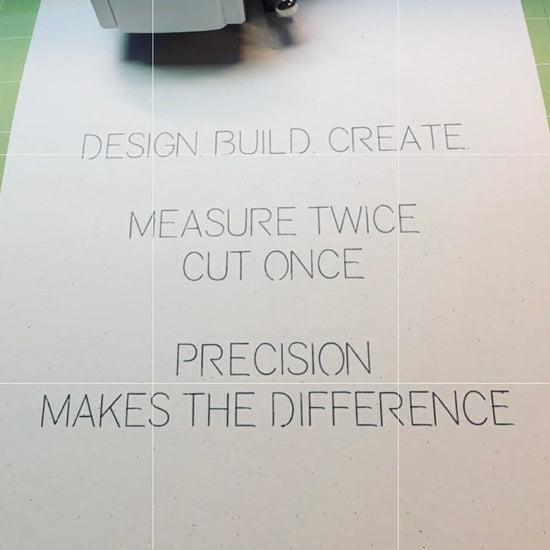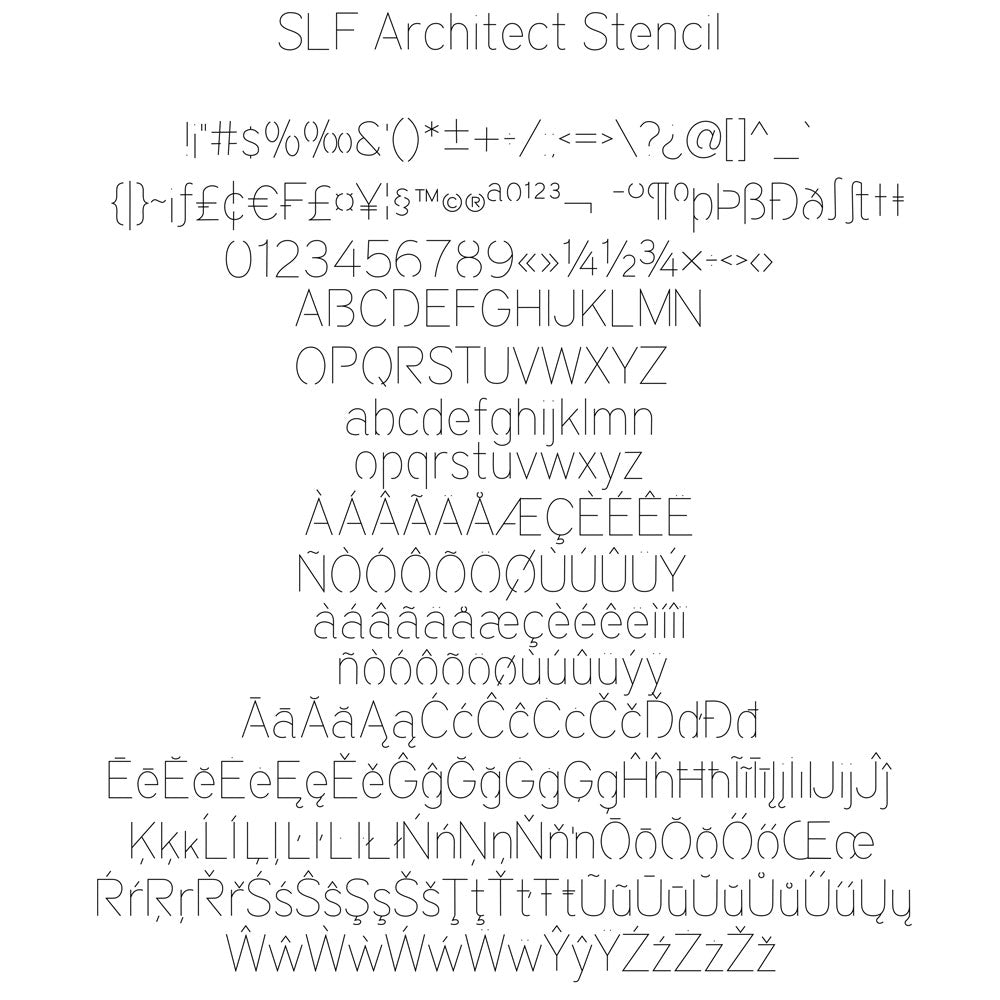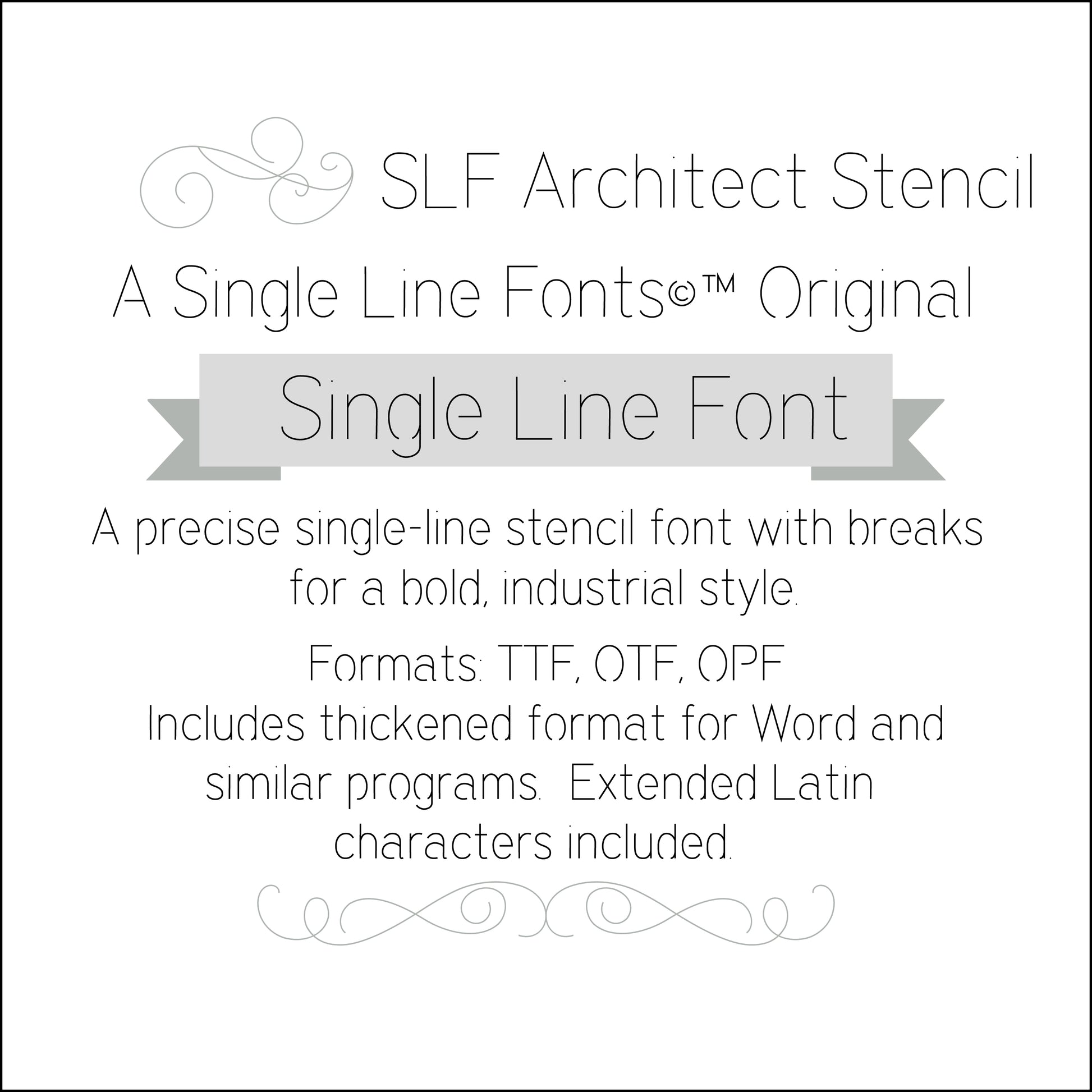
SLF Architect Stencil – Technical Single Line Engraving Font for CNC & Laser
SLF Architect Stencil is a precise, technical single line font inspired by classic architectural stencils and drafting lettering. Its clean geometric letterforms are ideal for CNC engraving, laser scoring, plotting, signage production, and professional creative projects where clarity and legibility are essential.
This monoline font includes a complete character set with uppercase letters, numbers, punctuation, and essential symbols for technical annotation and creative design.
• Technical diagrams, industrial signage, architectural labeling